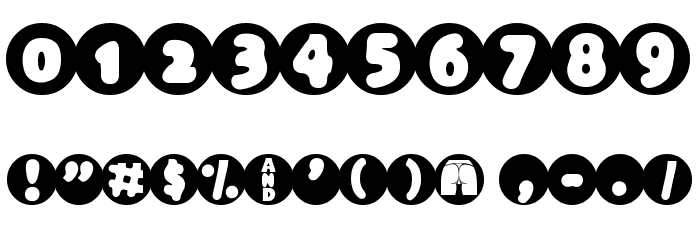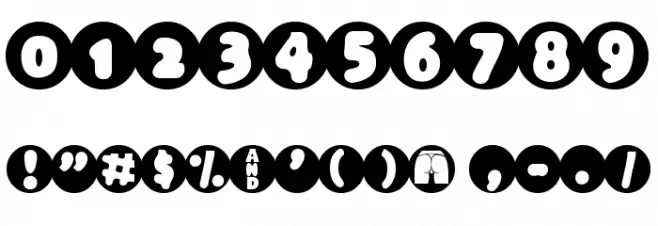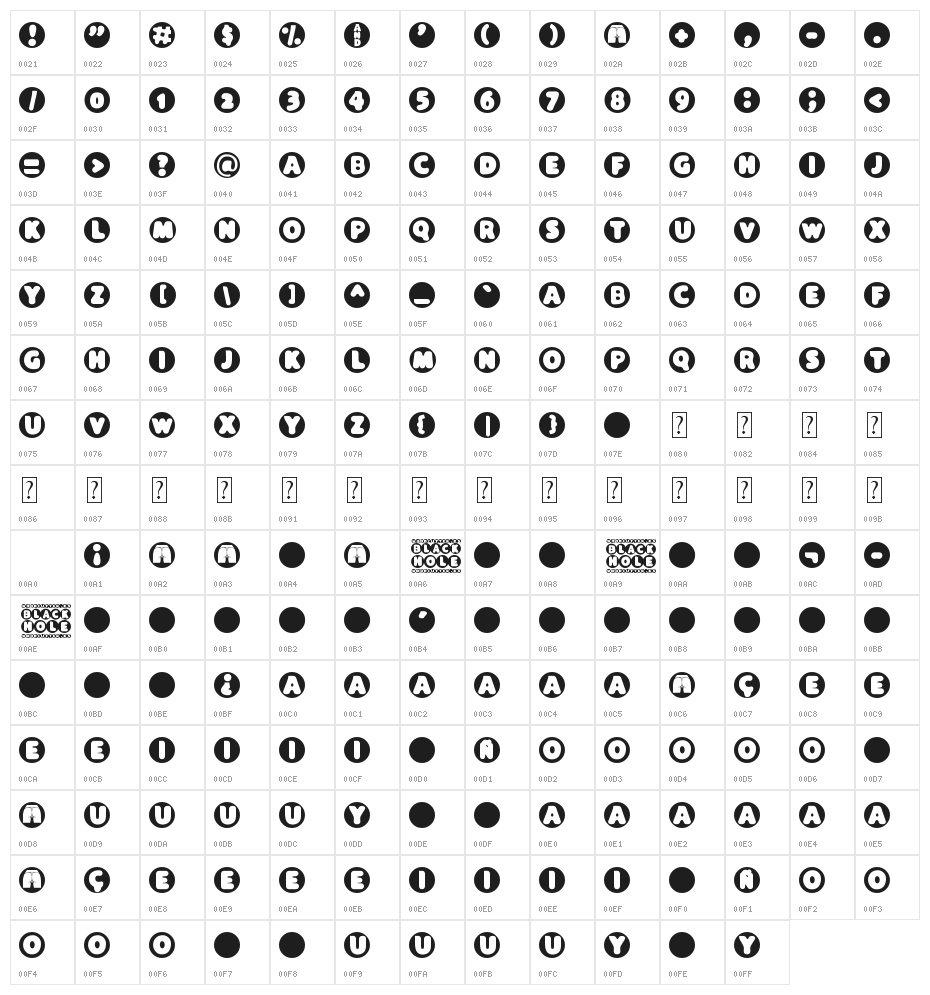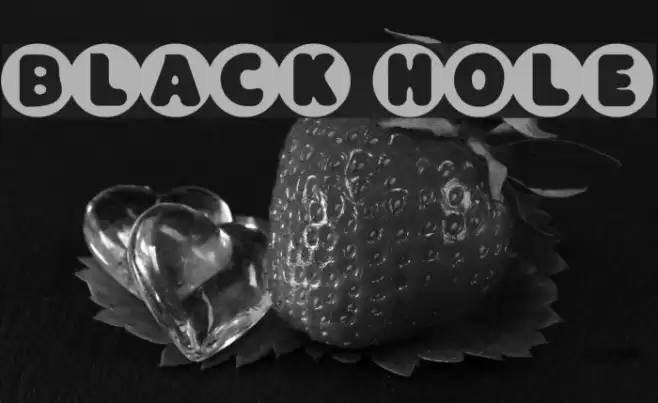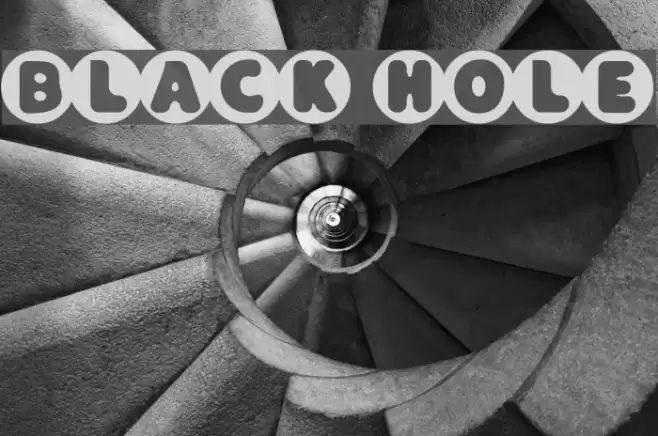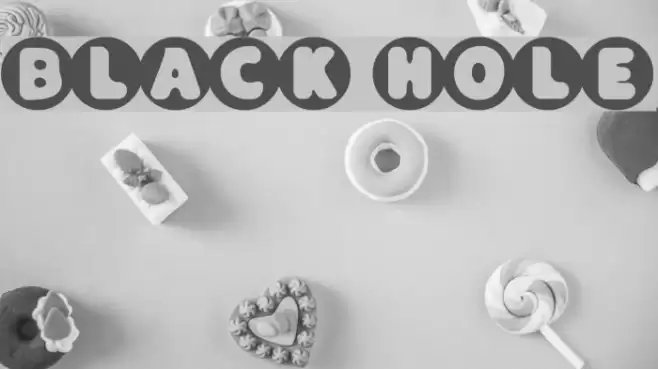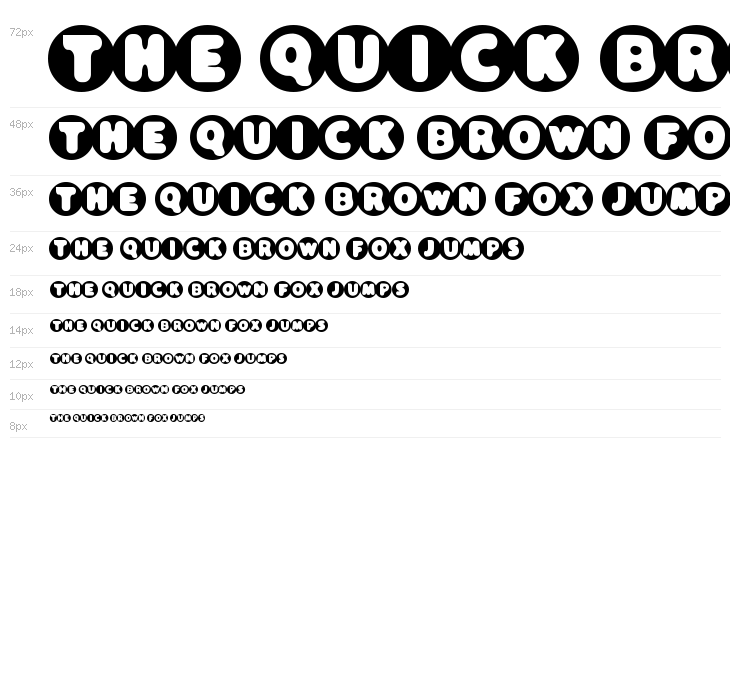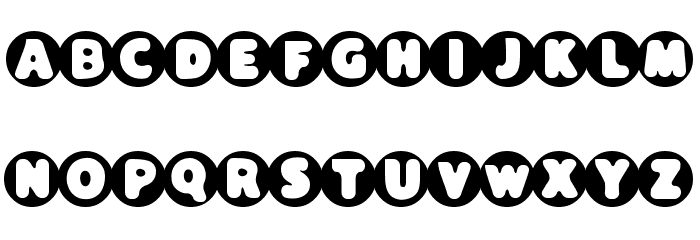
Black Hole Font
Black Hole Description
This font features bold, circular characters with a playful and unique style. Each letter and number is enclosed within a solid black circle, creating a striking contrast between the white characters and their backgrounds. The characters are bold and rounded, giving them a bubbly and fun appearance. This design is consistent across uppercase and lowercase letters, as well as numbers and special characters. The font's playful nature makes it ideal for creative and informal projects, where a sense of fun and whimsy is desired. Its distinct style ensures that it stands out, making it suitable for eye-catching headlines and logos.
| Overall Style | Playful, Modern |